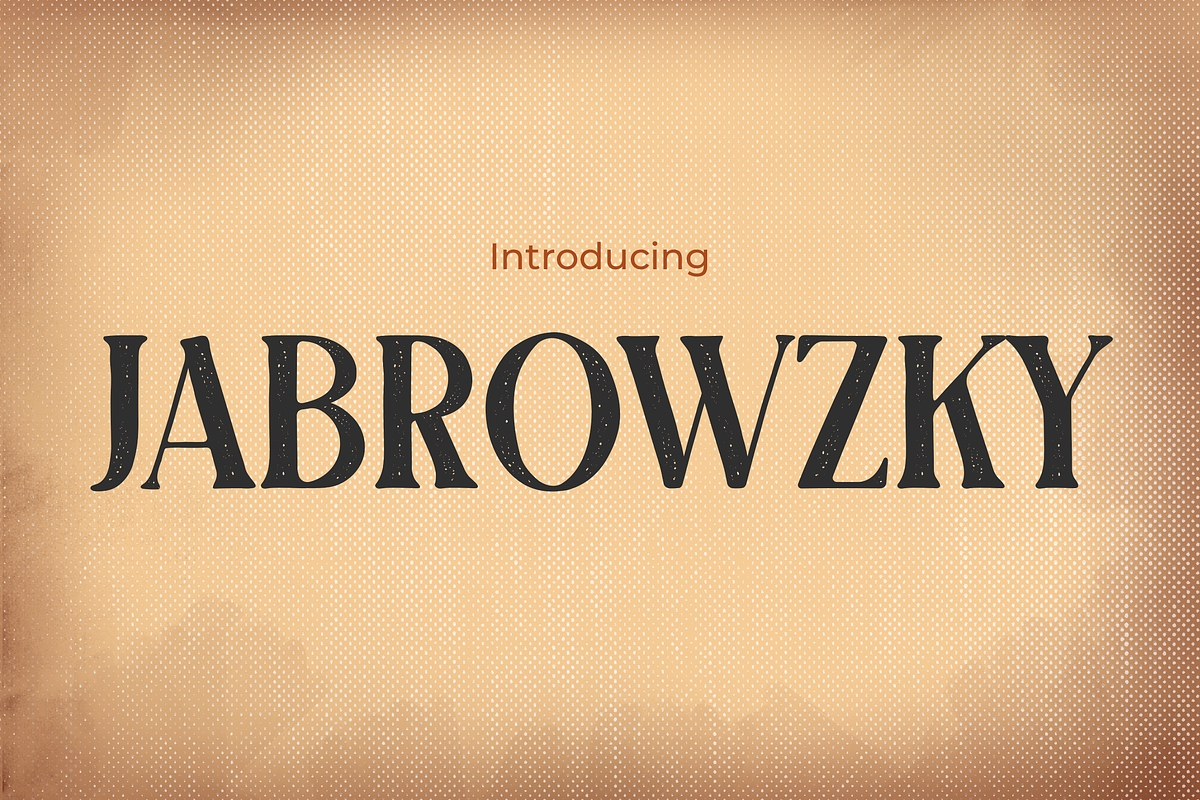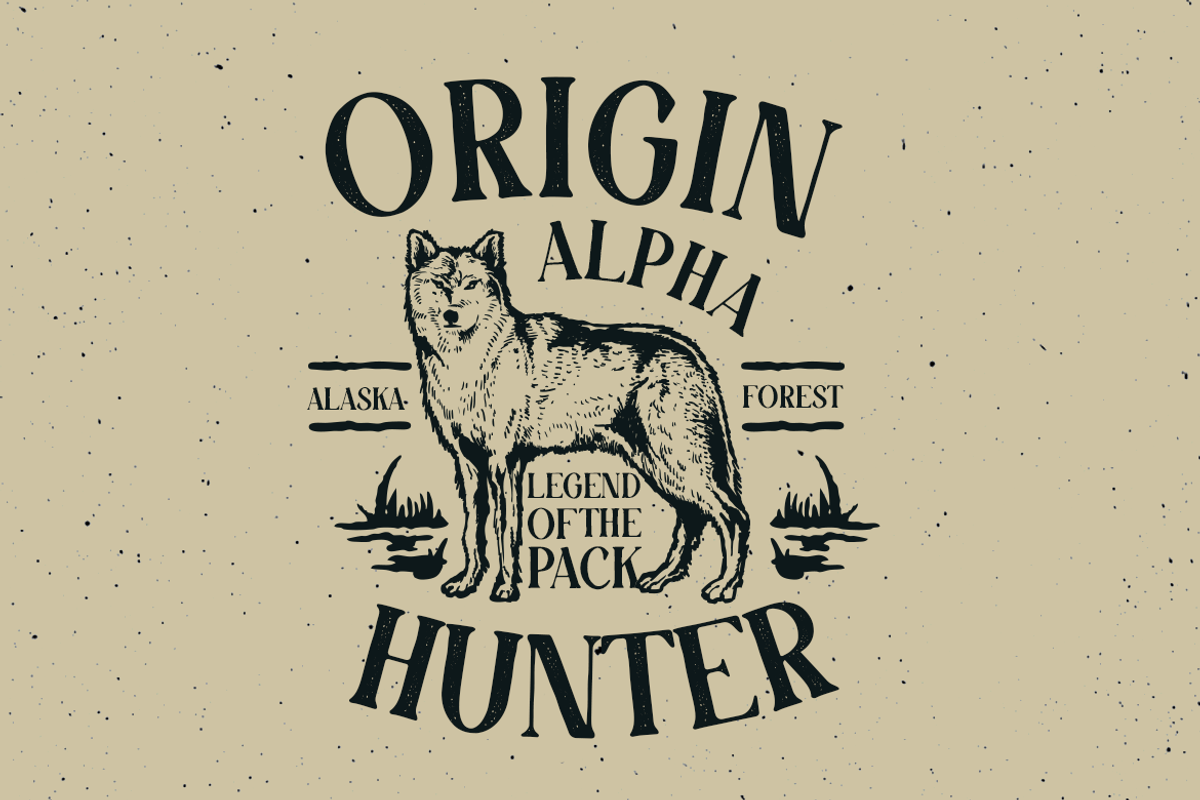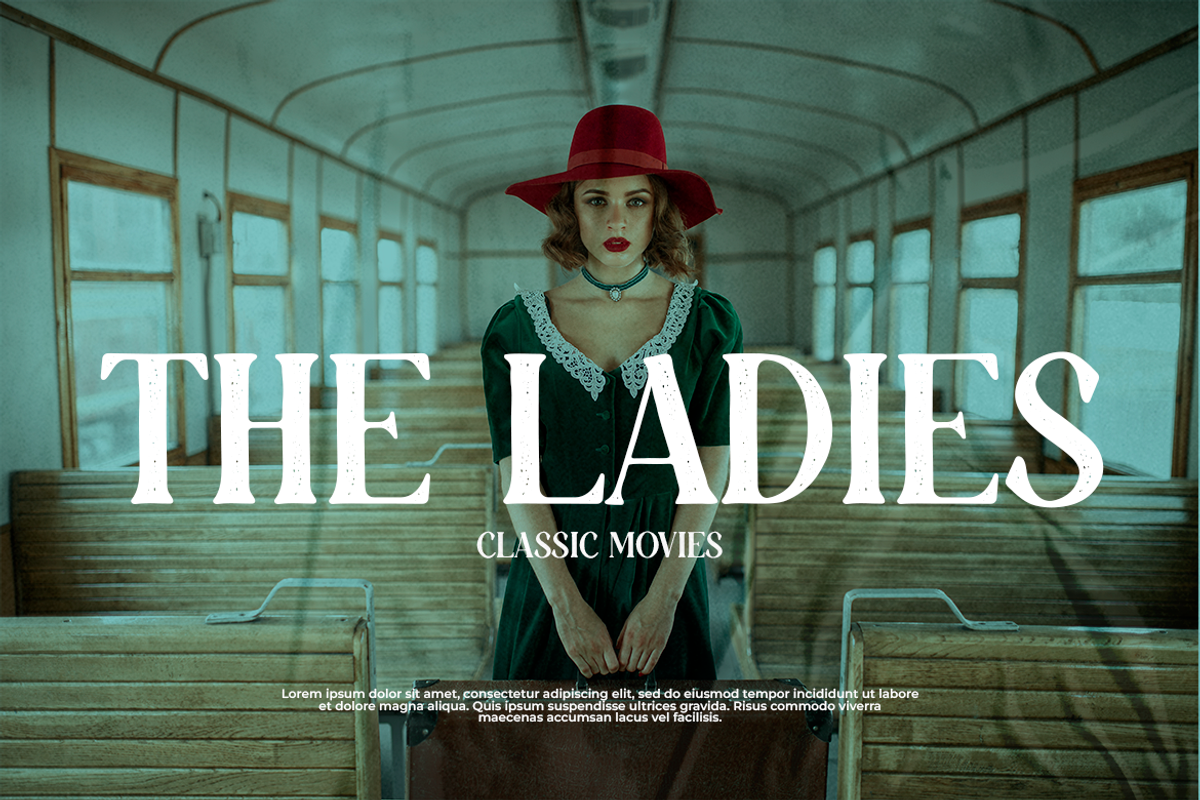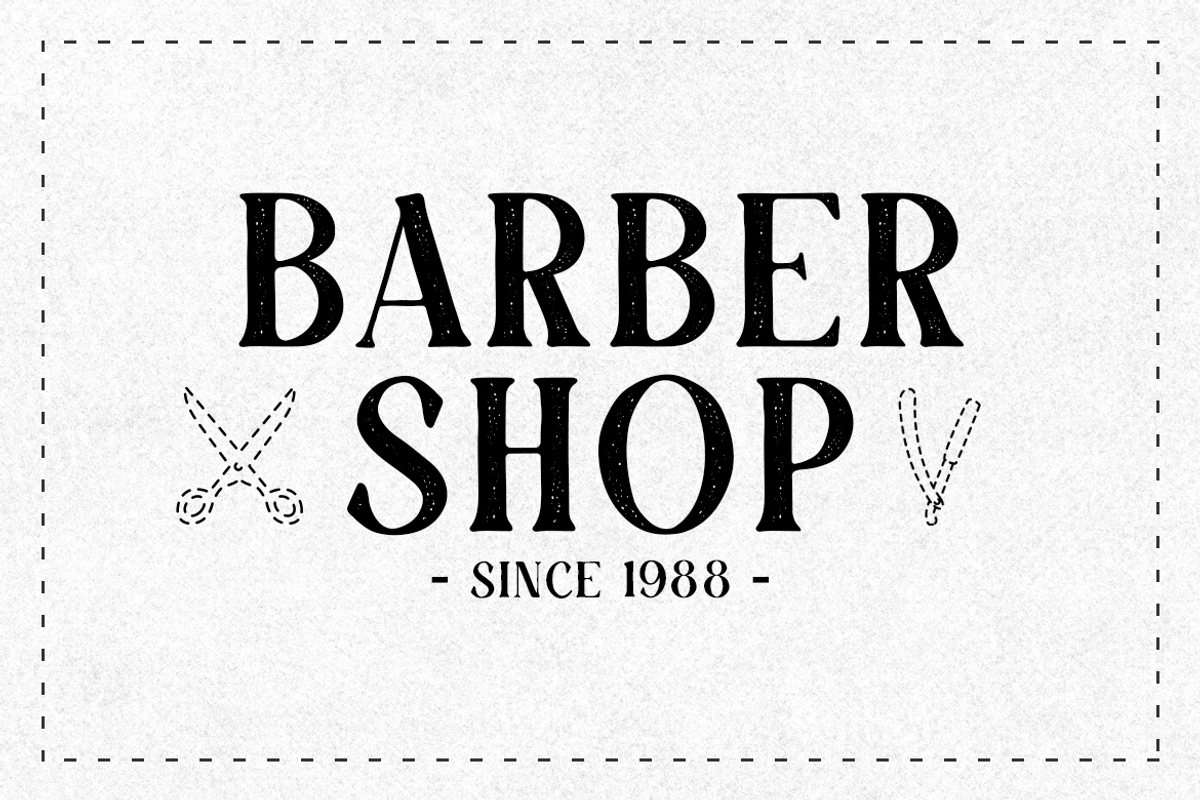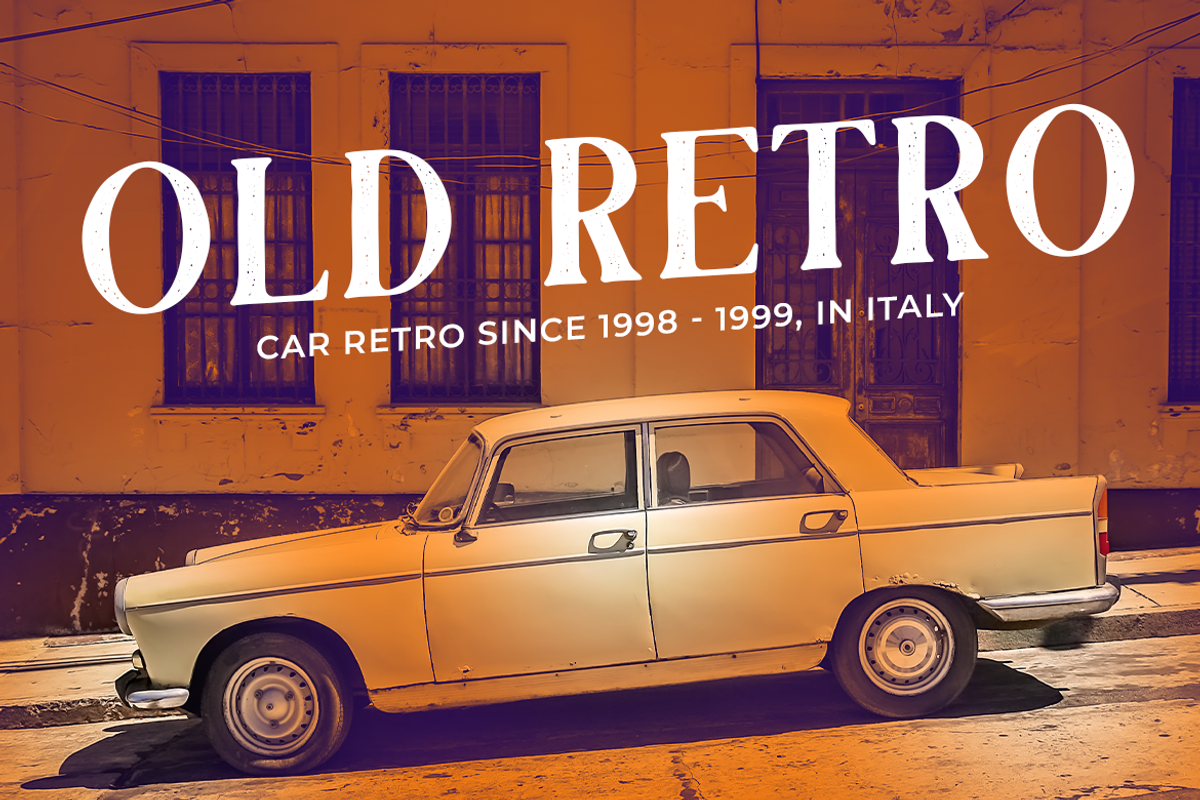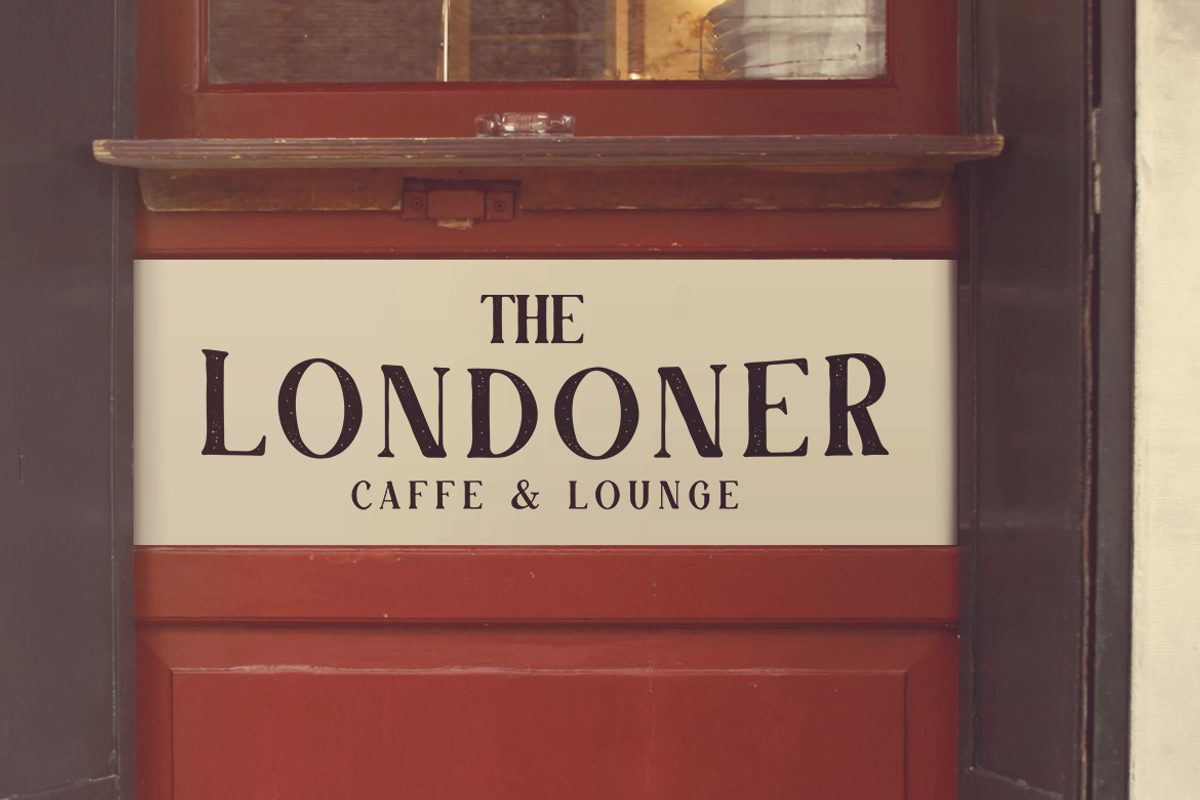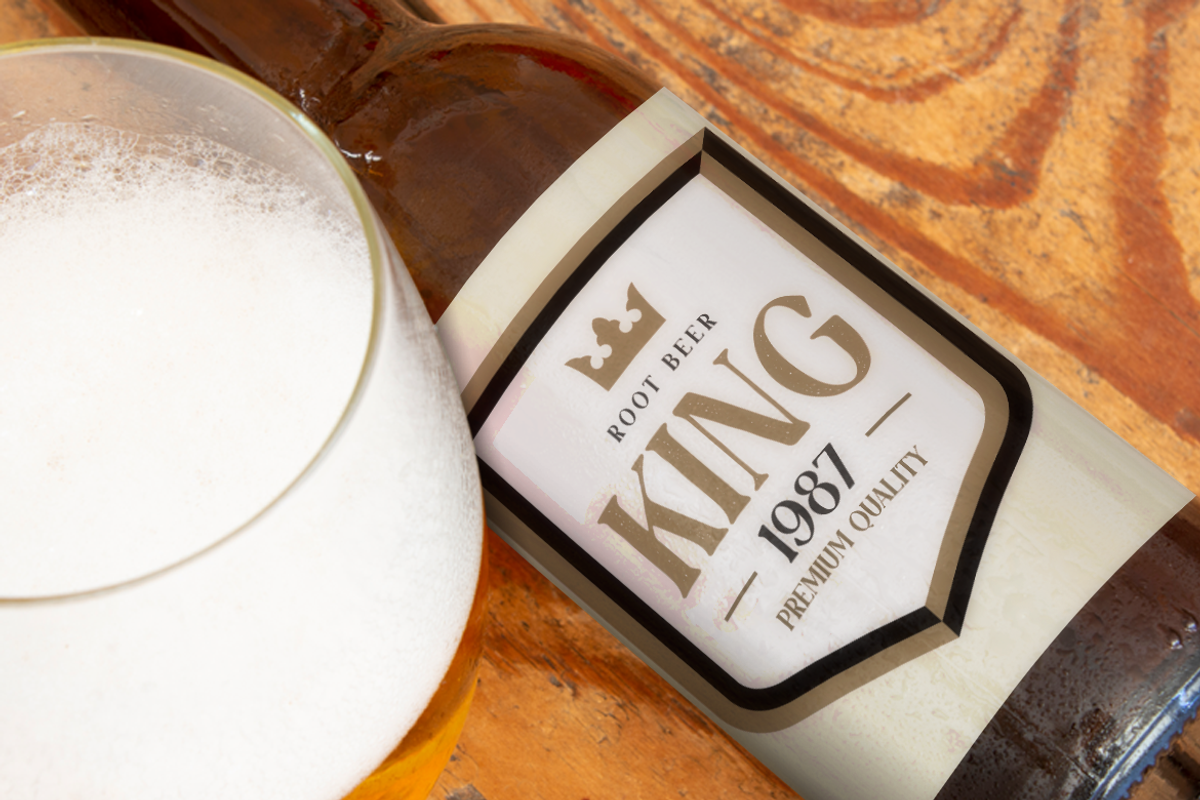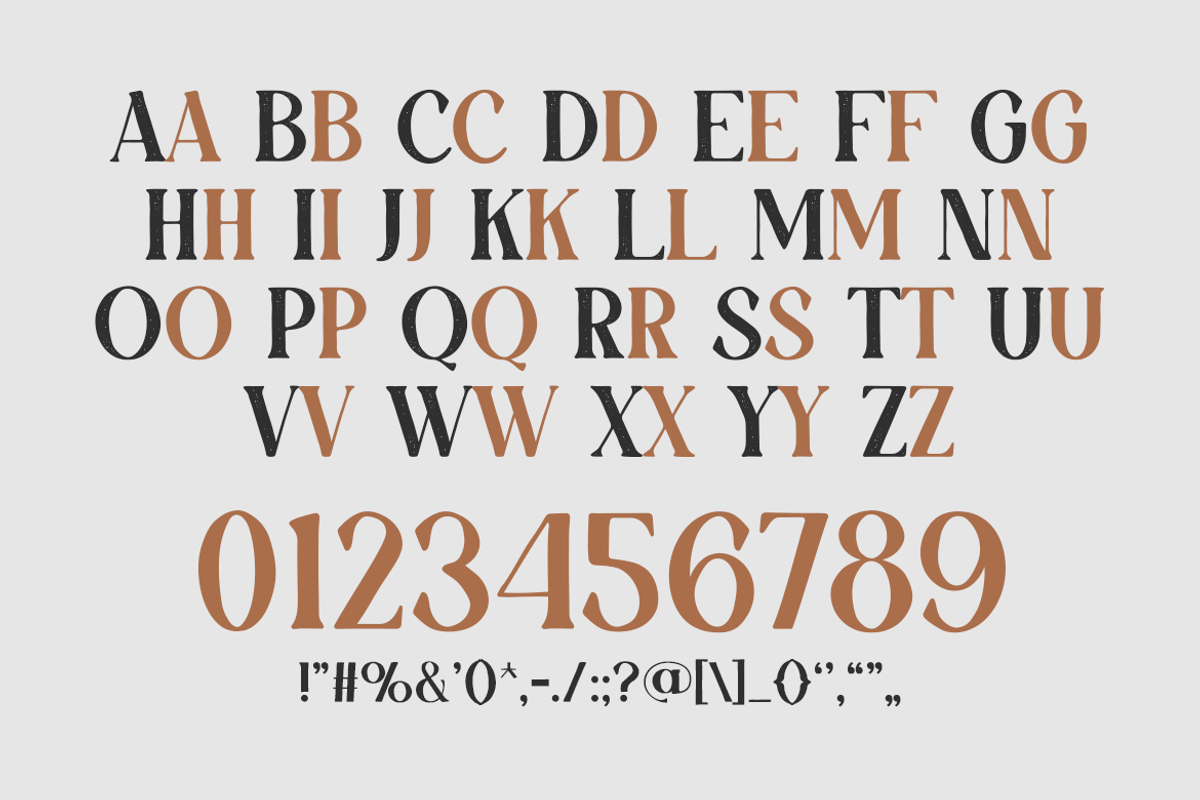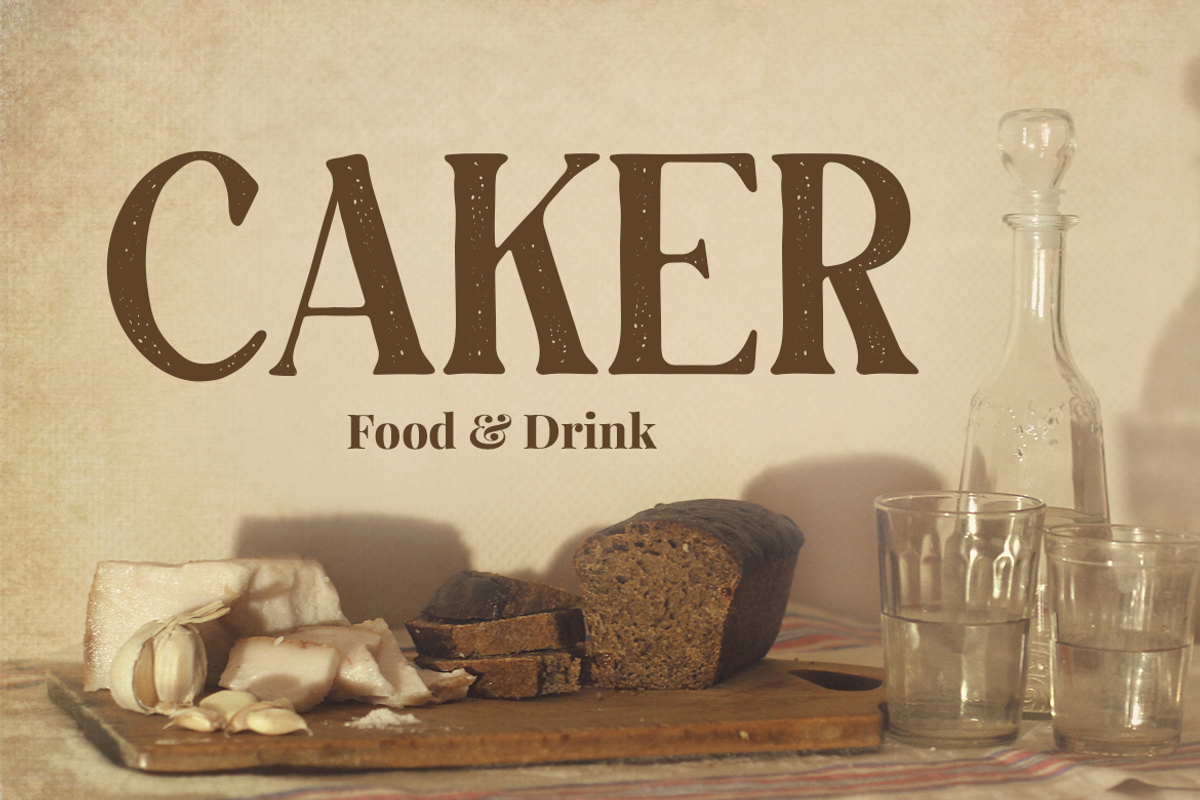
JABROWZKY
Jabrowzky – The Ultimate Vintage Retro Font
Unleash the timeless charm of yesteryears with Jabrowzky, a font that captures the essence of vintage and retro styles in one seamless design. Specially crafted for those with a penchant for nostalgia and elegance, Jabrowzky is the perfect blend of classic sophistication and old-world charm, making it ideal for projects that require a touch of historical flair.